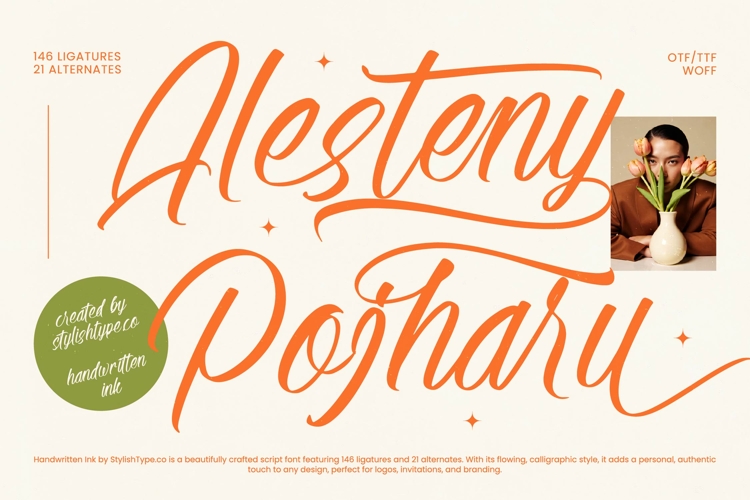
Alesteny Pojharu - Handwritten Ink Font
Experience the fluid elegance of **Alesteny Pojharu**, a masterfully crafted handwritten ink font that breathes life into every character. Its sweeping curves and organic flow create a sophisticated visual rhythm that instantly elevates any creative project.
Inspired by the timeless art of traditional ink calligraphy, this typeface captures the spontaneous beauty of a hand-drawn stroke. The design reflects the natural variations of a pen meeting paper, resulting in an atmosphere that is both intimate and high-end.
This font is more than just a script; it is a **modern serif display** alternative that prioritizes **luxury typography** and emotional resonance. With its **high-contrast serif** elements disguised in fluid motion, it provides a powerful **editorial font** choice for creators seeking maximum **branding impact**.
Perfectly aligned with the **modern serif trend**, this typeface brings a fresh perspective to **editorial display fonts** used in high-fashion media. Its **character-driven typography** makes it a standout choice for designers looking to move away from rigid geometry toward more expressive, human-centric aesthetics.
This versatile script excels in **logo design** and high-end **branding**, offering a bespoke feel to boutique identities. It is an ideal selection for **editorial** layouts, luxury **packaging**, romantic **wedding** stationery, and sophisticated **fashion** lookbooks.
The technical versatility of this font is unmatched, featuring an expansive set of 146 **ligatures** and 21 **alternates** to ensure unique letter combinations. It also includes decorative **swashes**, comprehensive **multilingual** support, and a full range of **international characters** for global accessibility.